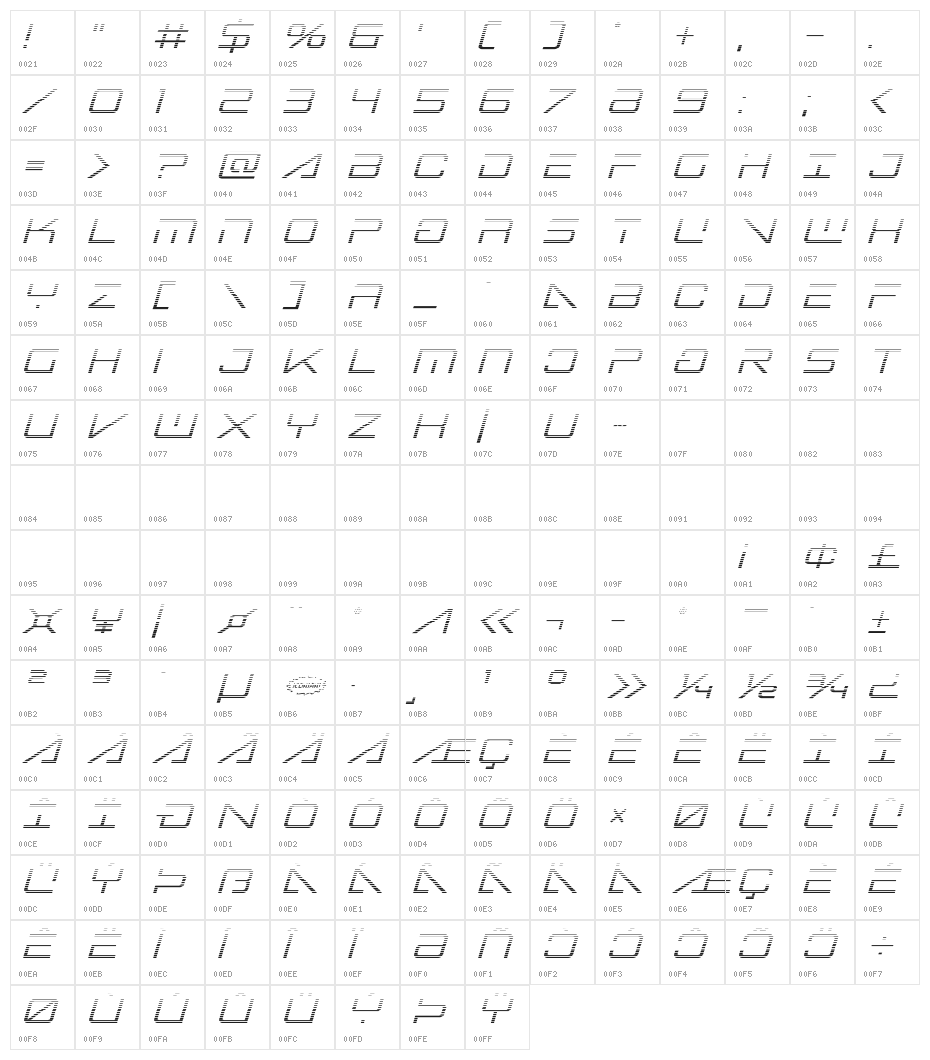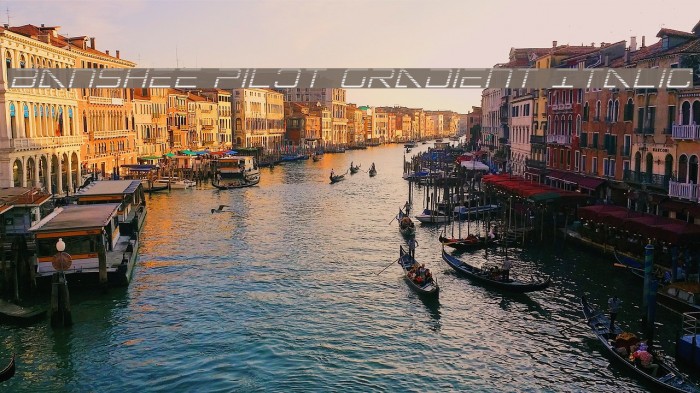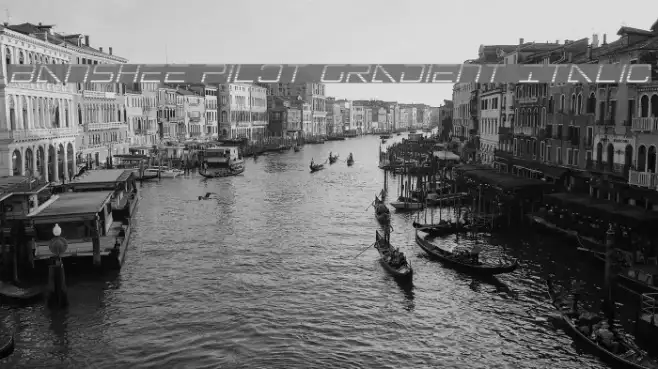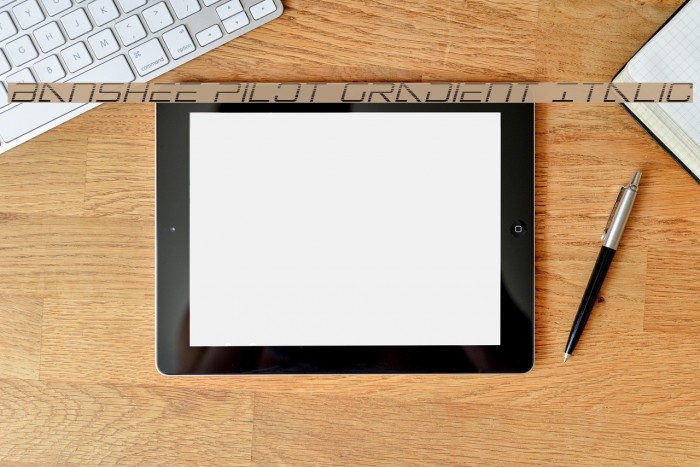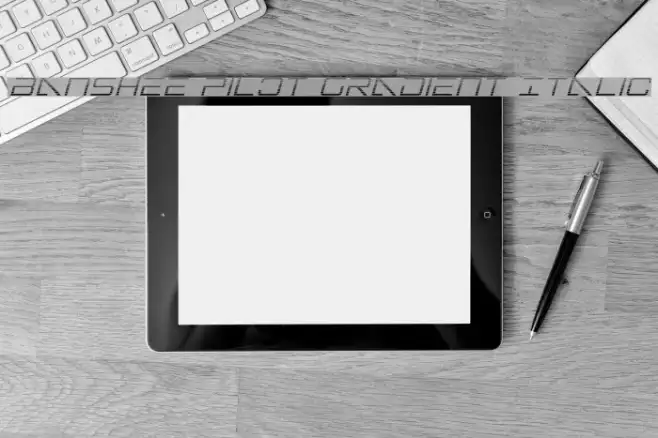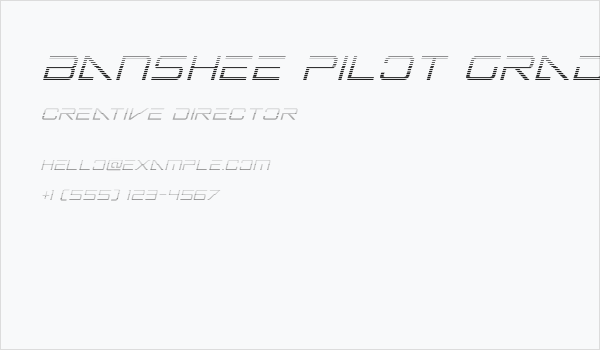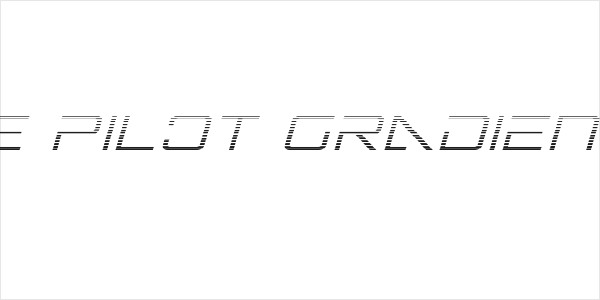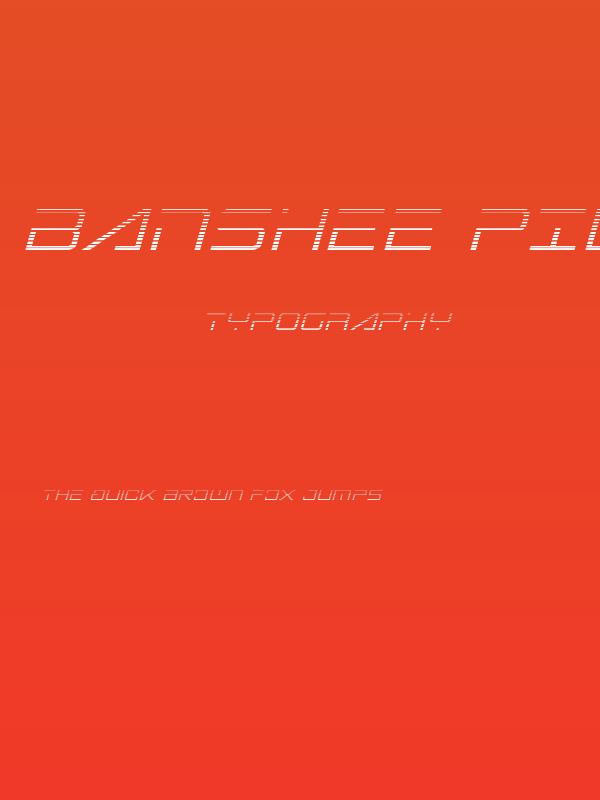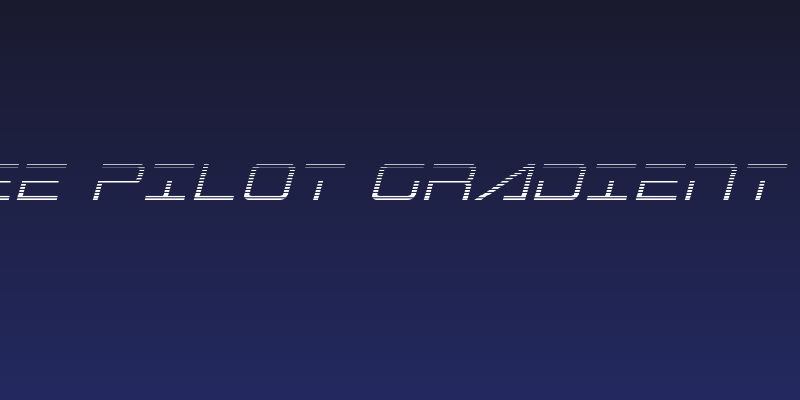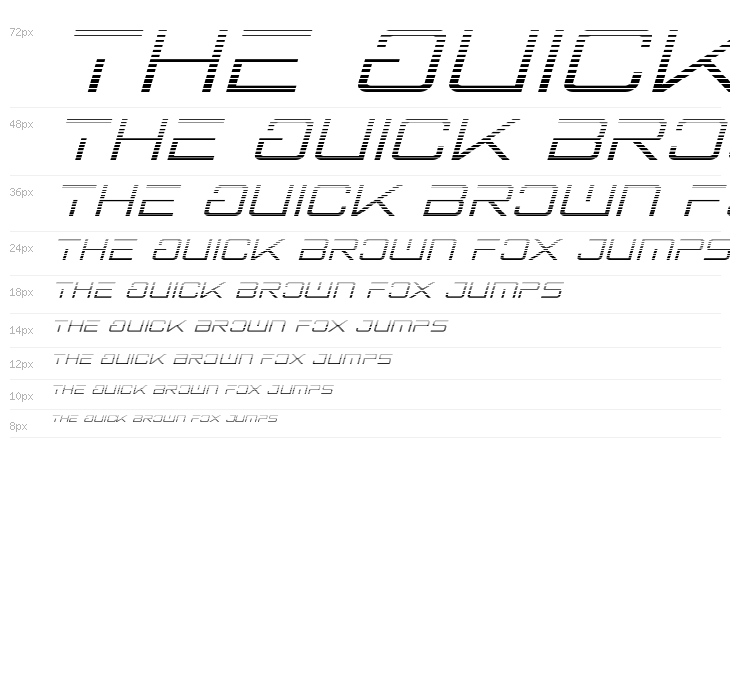
Banshee Pilot Gradient Italic Font
Banshee Pilot Gradient Italic Description
This font features a futuristic and dynamic design with a gradient effect that gives it a sense of motion and speed. The characters are italicized, adding to the sleek and modern aesthetic. The strokes are composed of parallel lines, creating a unique texture that enhances its digital and high-tech appearance. The uppercase and lowercase letters maintain a consistent style, with sharp angles and geometric shapes. The numerals and special characters are designed to match the overall theme, making this font suitable for projects that require a cutting-edge and innovative look.
| Proposed Projects | Ideal for technology branding, sci-fi movie posters, video game titles, and digital media projects. |